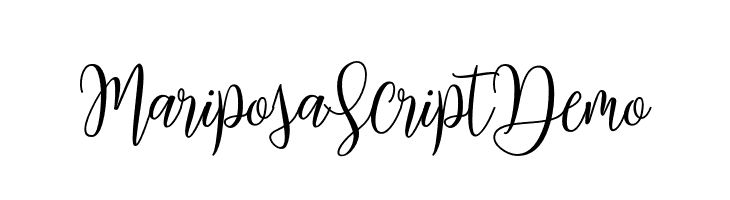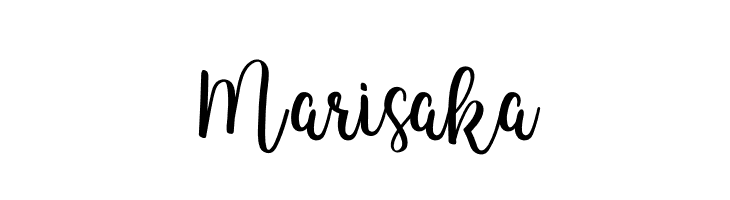
An elegant and sophisticated script font with decorative flourishes.
A dynamic and flowing script font with elegant cursive strokes.
A dynamic and fluid script font with elegant, flowing letterforms and expressive swashes.
A playful, flowing script font with smooth, rounded curves and connected letterforms.
A bold, decorative font with a rugged, distressed texture.
A graceful and sophisticated script font with flowing, interconnected letters.
A graceful script font with flowing, interconnected letters and elegant curves.
A bold, expressive handwritten font with dynamic strokes and artistic flair.
An elegant, cursive script font with fluid connections and dynamic contrast.